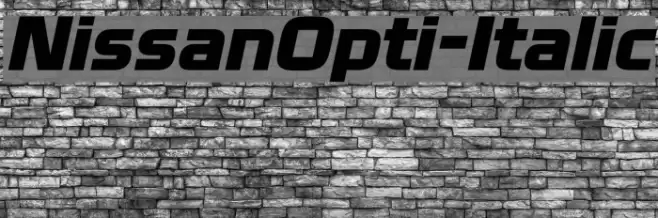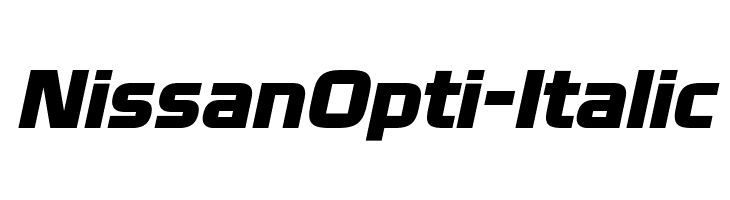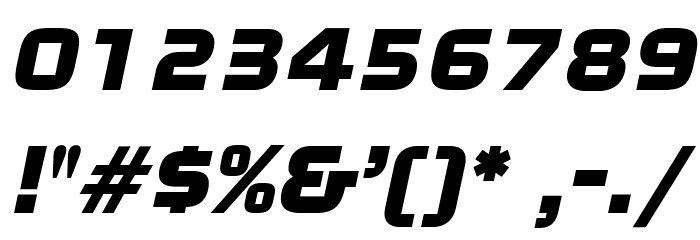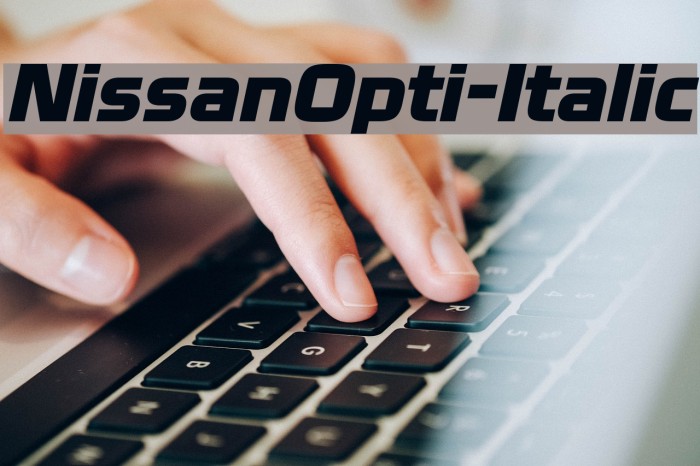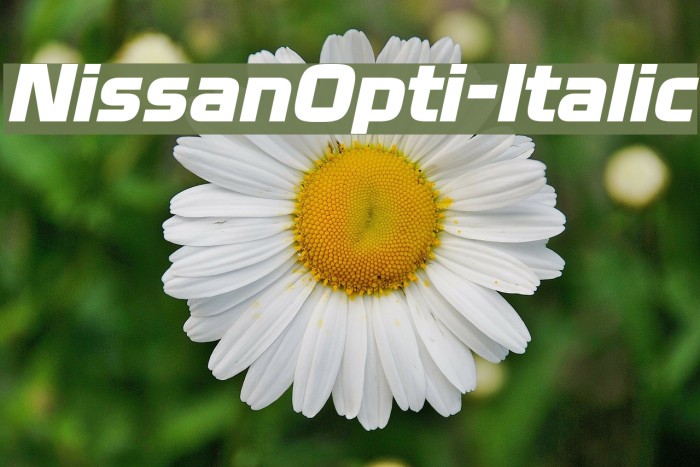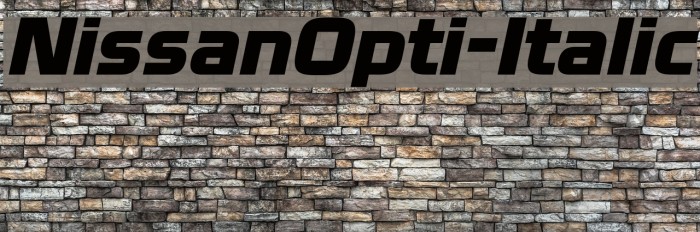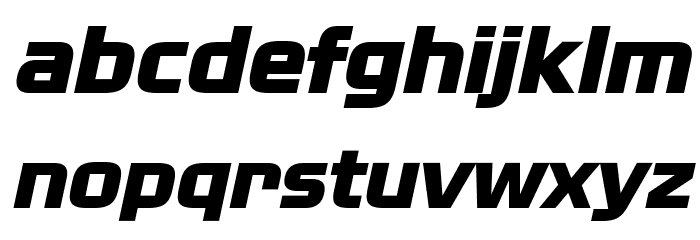
NissanOpti-Italic Font
NissanOpti-Italic Description
This font exhibits a modern and dynamic style with a strong italic slant, giving it a sense of motion and speed. The characters are bold and have a slightly condensed appearance, which enhances their impact. The strokes are consistent in weight, providing a uniform look across all characters. The uppercase and lowercase letters maintain a cohesive design, with smooth curves and sharp angles that add to the font's sleek aesthetic. The numerals and special characters are designed to match the overall style, ensuring versatility in various applications.
A bold, italic font with a modern and dynamic style from Uncategorized fonts.
- Proposed Projects: Ideal for automotive branding, sports team logos, dynamic advertising, and modern web design.
- Use Case: Logos, Headlines, Advertising